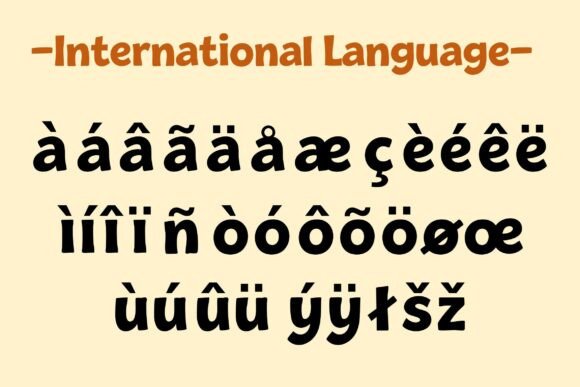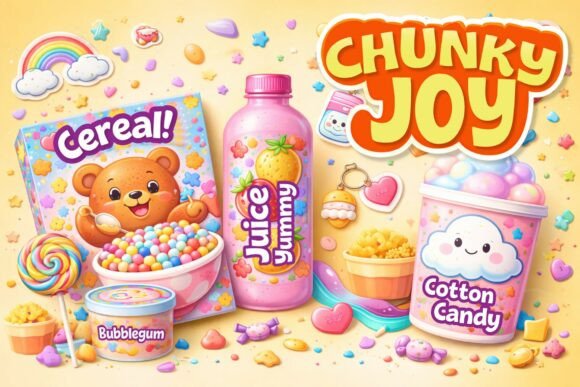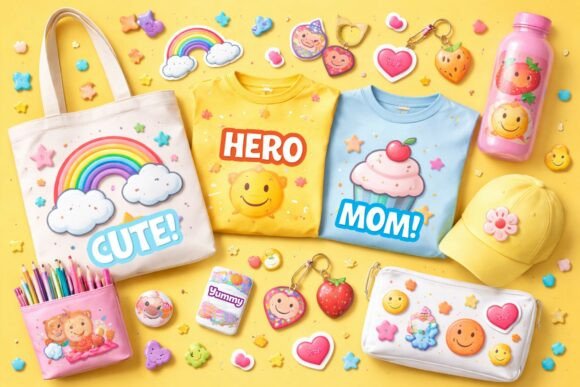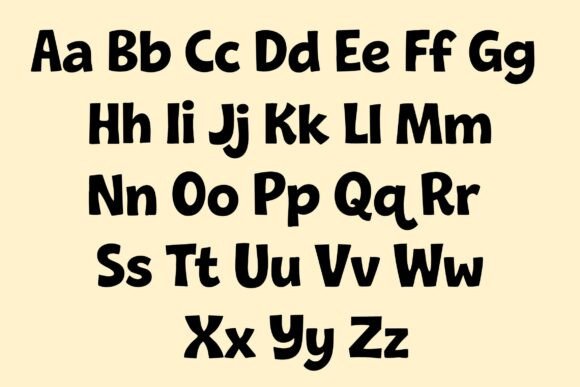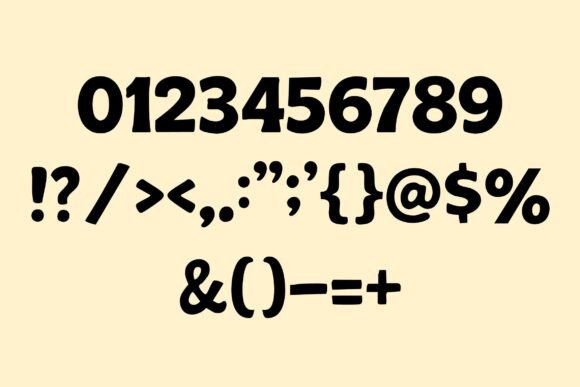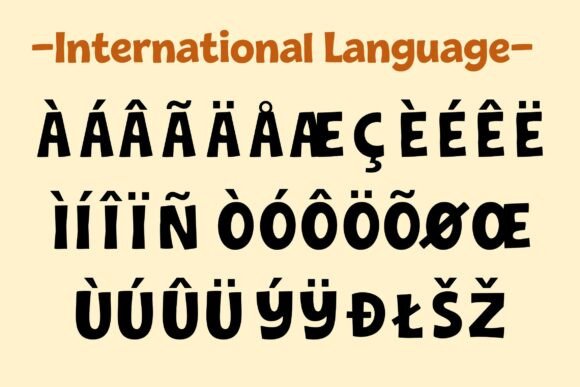
Introducing Chunky Joy Font: The Ultimate Playful Display Font
Are you tired of using the same old fonts in your design projects? Do you want to add a touch of fun and personality to your branding, packaging, and marketing materials? Look no further than Chunky Joy Font, a bold and playful hand-drawn display font that’s sure to bring a smile to your audience’s faces.
What is Chunky Joy Font?
Chunky Joy Font is a unique and eye-catching font that’s designed to bring a fun and cheerful personality to your projects. With its chunky shapes and friendly curves, this font is perfect for designers and crafters who want to add a playful touch to their work. Whether you’re creating branding for a kids’ product, designing snack packaging, or crafting social media graphics, Chunky Joy Font is the perfect choice.
Key Features of Chunky Joy Font
- Bold and Playful: Chunky Joy Font is a bold and playful font that’s designed to grab attention and make a statement.
- Hand-Drawn: This font is carefully hand-drawn to ensure that each letter has a unique and personal touch.
- Chunky Shapes: The font features chunky shapes that give it a fun and playful feel.
- Friendly Curves: The curves in Chunky Joy Font are friendly and approachable, making it perfect for brands that want to connect with their audience.
Use Cases for Chunky Joy Font
Chunky Joy Font is a versatile font that can be used in a variety of design projects, including:
- Kids Branding: This font is perfect for kids’ branding, including logos, packaging, and marketing materials.
- Snack Packaging: Add a playful touch to your snack packaging with Chunky Joy Font.
- Social Media Graphics: Use this font to create eye-catching social media graphics that will grab your audience’s attention.
- Posters: Create fun and playful posters with Chunky Joy Font that’s sure to stand out.
- Playful Logo Designs: This font is perfect for designing playful logos that will help your brand stand out.
Why Choose Chunky Joy Font?
There are many fonts available that are similar to Chunky Joy Font, but here are a few reasons why you should choose this font for your next project:
- Unique and Eye-Catching: Chunky Joy Font is a unique and eye-catching font that’s sure to grab attention.
- Easy to Read: Despite its playful design, Chunky Joy Font is easy to read, even at smaller sizes.
- Versatile: This font can be used in a variety of design projects, from branding to packaging to marketing materials.
- Fun and Cheerful: Chunky Joy Font is designed to bring a fun and cheerful personality to your projects, making it perfect for brands that want to connect with their audience.
Tips for Using Chunky Joy Font
Here are a few tips for using Chunky Joy Font in your design projects:
- Use it as a Display Font: Chunky Joy Font is designed to be used as a display font, so use it to grab attention and make a statement.
- Pair it with a Simple Font: Pair Chunky Joy Font with a simple font to create contrast and make your design more visually appealing.
- Experiment with Colors: Have fun with colors and experiment with different combinations to find the perfect look for your brand.
- Don’t Overuse it: While Chunky Joy Font is a fun and playful font, it’s best to use it sparingly to avoid overwhelming your audience.
Chunky Joy Font is a bold and playful hand-drawn display font that’s perfect for designers and crafters who want to add a fun and cheerful personality to their projects. With its chunky shapes and friendly curves, this font is sure to grab attention and make a statement. Whether you’re creating branding for a kids’ product, designing snack packaging, or crafting social media graphics, Chunky Joy Font is the perfect choice. So why wait? Download Chunky Joy Font today and start adding a playful touch to your design projects!